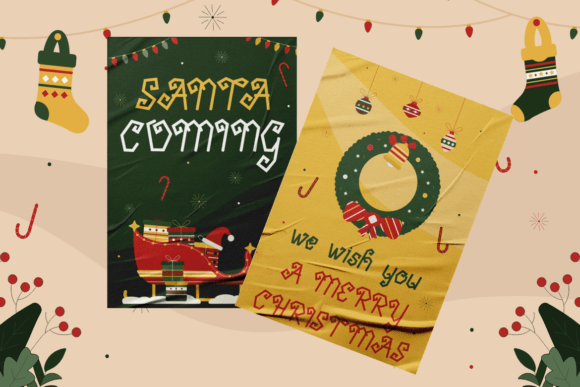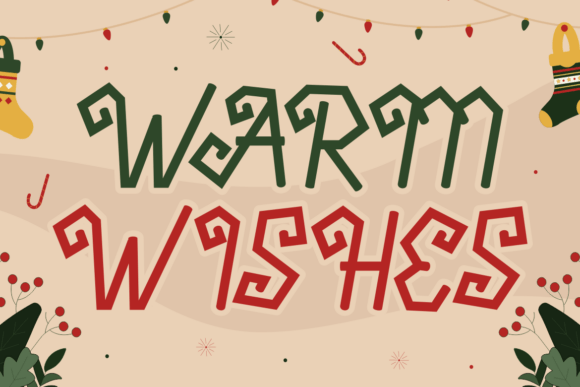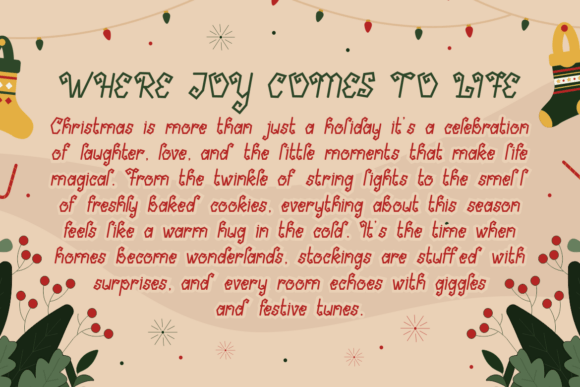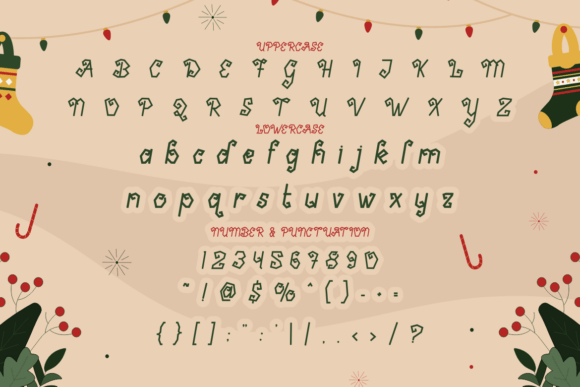
Introduction to Snick Twirl Font
Have you ever found yourself browsing through a holiday market, surrounded by twinkling lights and the scent of gingerbread, only to stumble upon the perfect font to match the festive atmosphere? For designers, that moment of discovery is priceless, and it’s exactly what happens when you lay eyes on the enchanting Snick Twirl Font.
With its unique blend of geometric edges and playful curls, Snick Twirl Font is the perfect design resource for any creative project that demands a dash of holiday magic. Whether you’re working on a Christmas campaign, a festive packaging design, or a merry invitation card, this font is sure to bring a smile to your face and a touch of whimsy to your design.
Key Features of Snick Twirl Font
- Unique, hand-drawn design ideal for creative projects requiring a whimsical touch
- Perfect for designers seeking a distinctive, eye-catching font for their creative project
Honest Review: Snick Twirl Font
I recently had the chance to work with the Snick Twirl Font, and I must say, it’s a great addition to any designer’s toolkit. ✨ The font’s whimsical feel makes it perfect for creative projects that require a touch of personality.
- Wide range of styles and variations
- Not suitable for all types of design projects (e.g. formal or corporate materials)
- Some users may find the font’s unique style too playful or distracting
Overall, I’m impressed with the Snick Twirl Font and would recommend it to designers looking for a high-quality, creative design resource. Just be aware of its limitations and use it accordingly.
The Snick Twirl Font is a high-quality design resource perfect for any creative project. With its unique and playful style, this font is ideal for adding a touch of whimsy to your designs.
Tips for Getting the Most Out of Snick Twirl Font
To get the most out of the Snick Twirl Font, experiment with different font sizes, colors, and combinations with other fonts. You can also use it to create custom graphics and illustrations.
The Snick Twirl Font is ideal for a variety of creative projects, including:
- Birthday invitations and party decorations
- Wedding invitations and decorations
- Children’s book illustrations and graphics
- Custom graphics and illustrations for social media